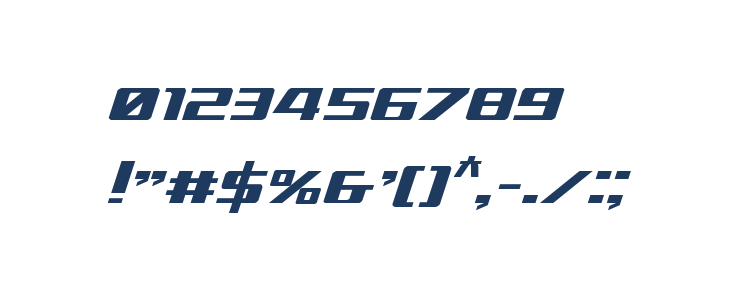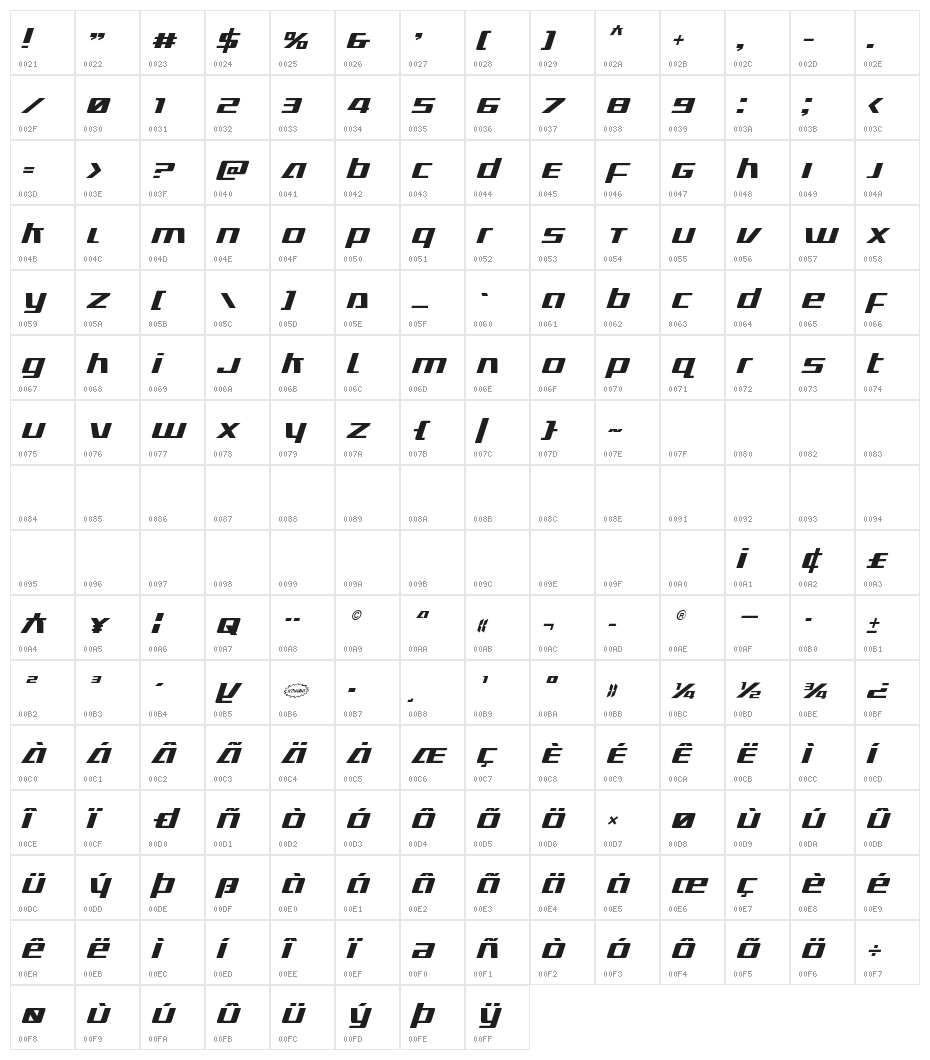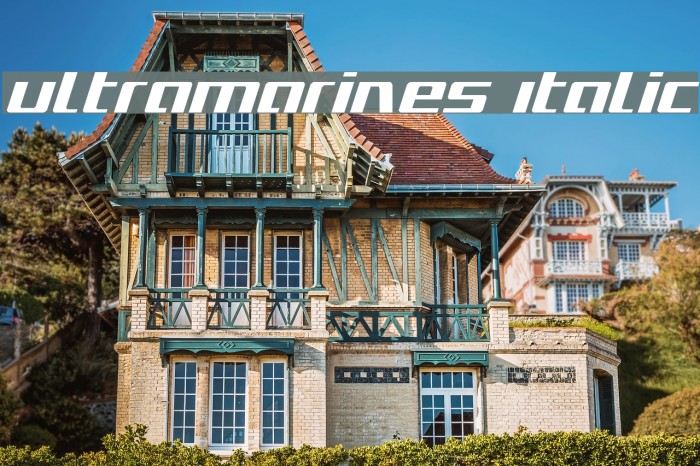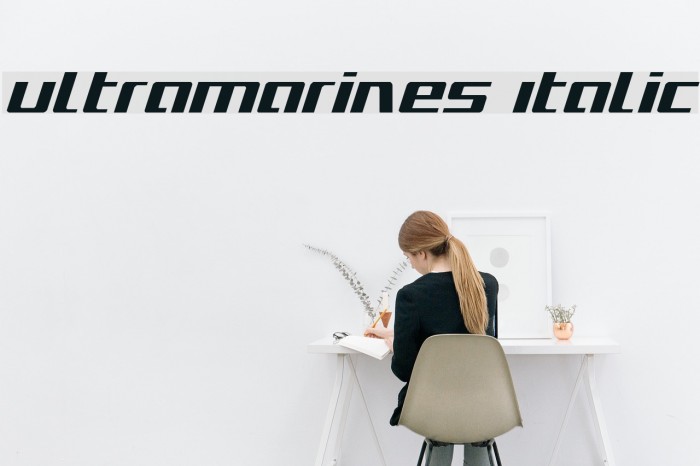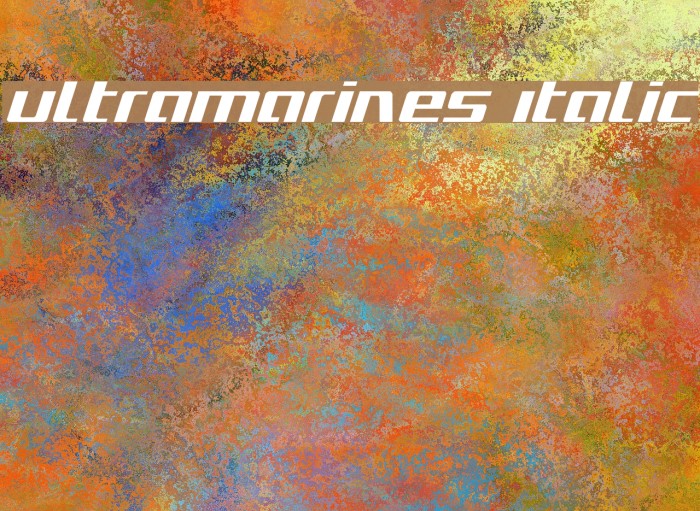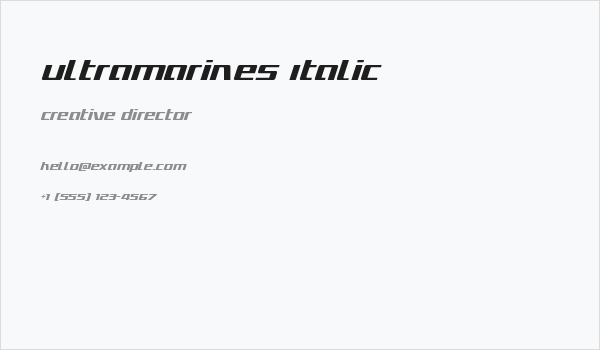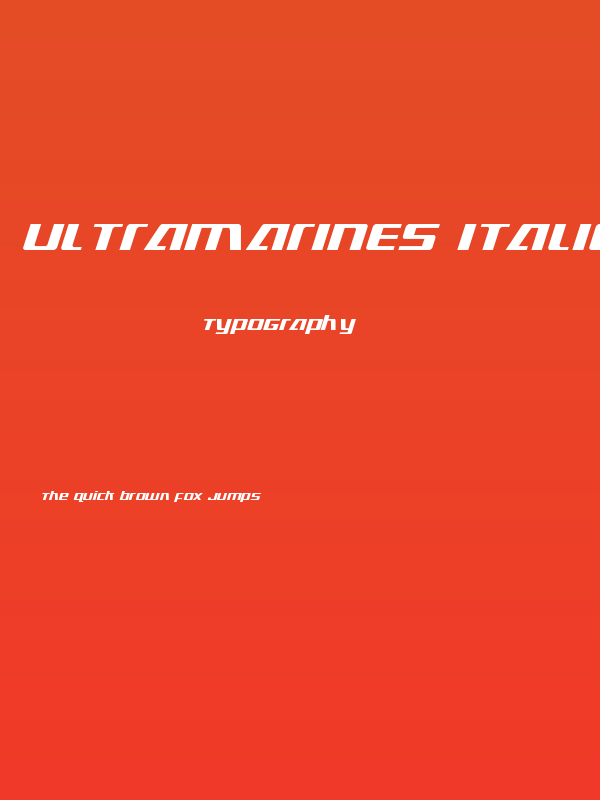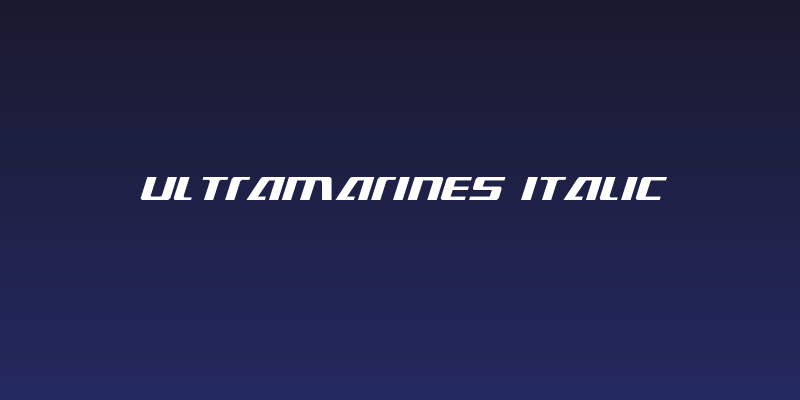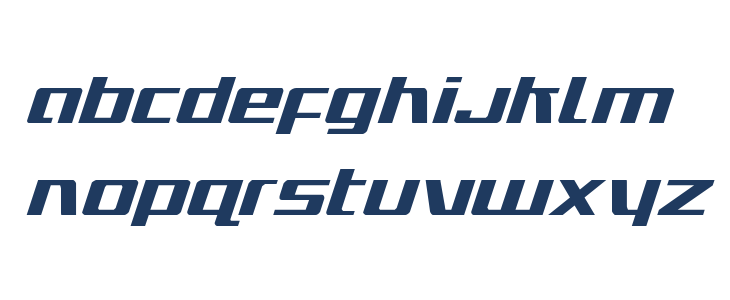
Ultramarines Italic Font
Ultramarines Italic Description
This font features a modern and dynamic style with a strong italic slant, giving it a sense of motion and speed. The characters are bold and angular, with sharp edges and a futuristic aesthetic. The uppercase and lowercase letters maintain a consistent design, with a uniform stroke width that enhances readability. The numerals are distinct and align well with the overall style, while the special characters complement the set with similar angular features. This font is ideal for projects that require a bold and energetic look.